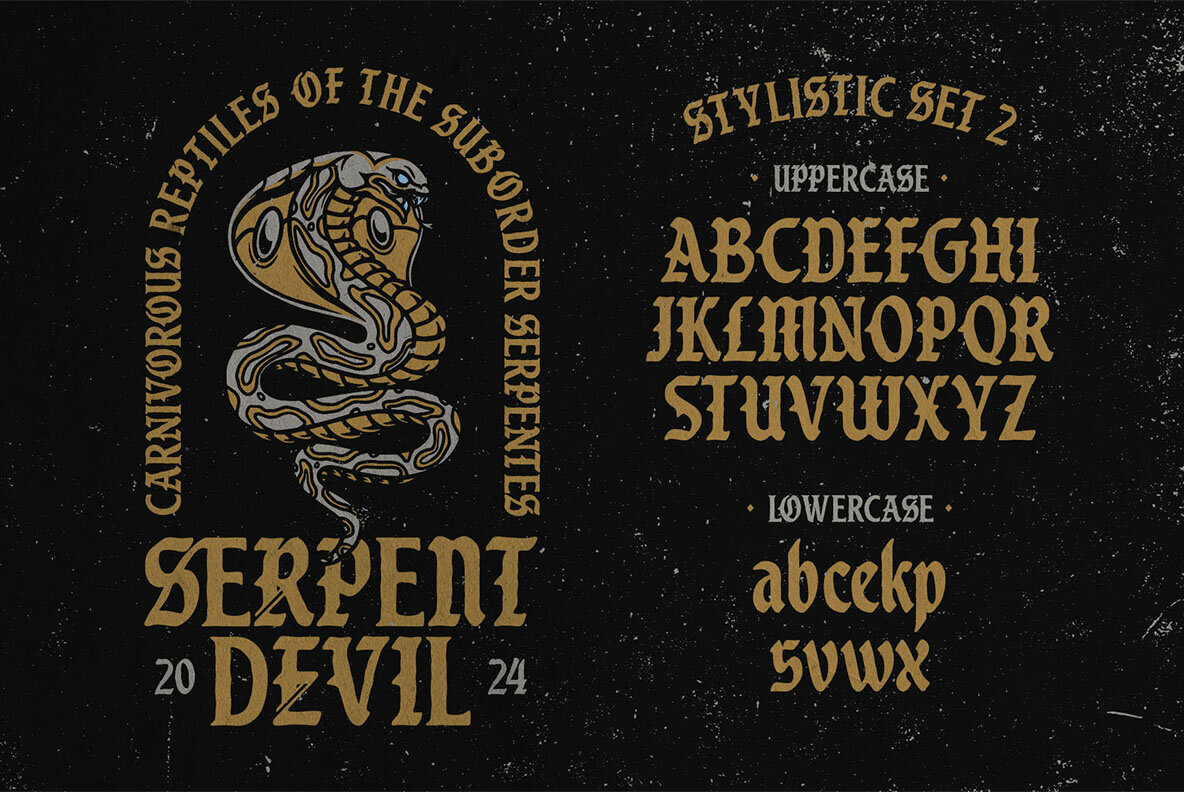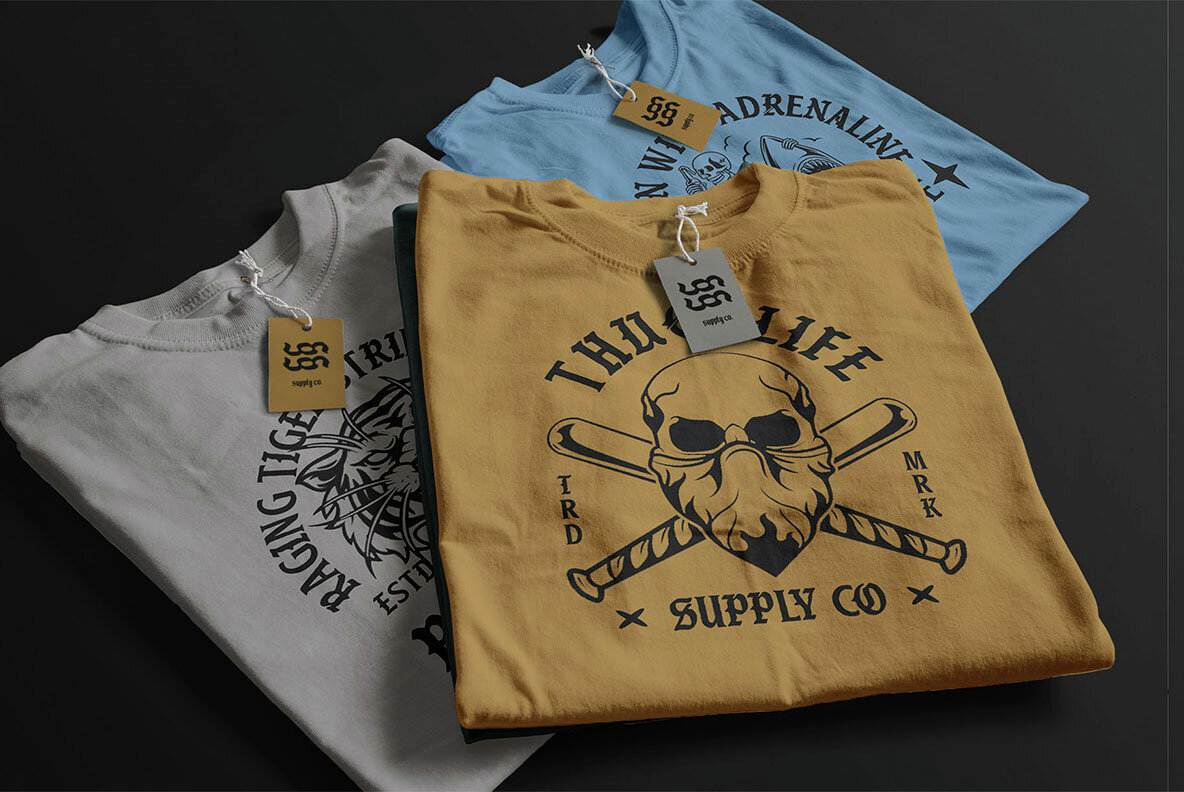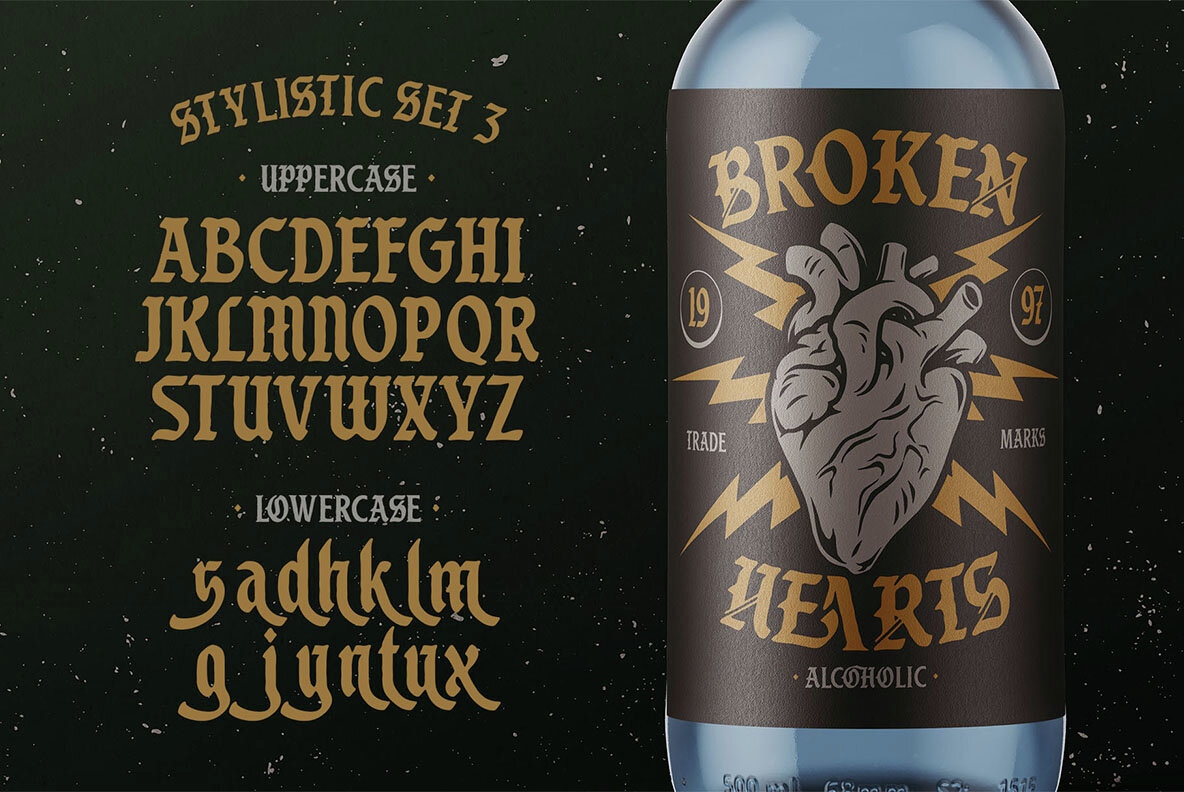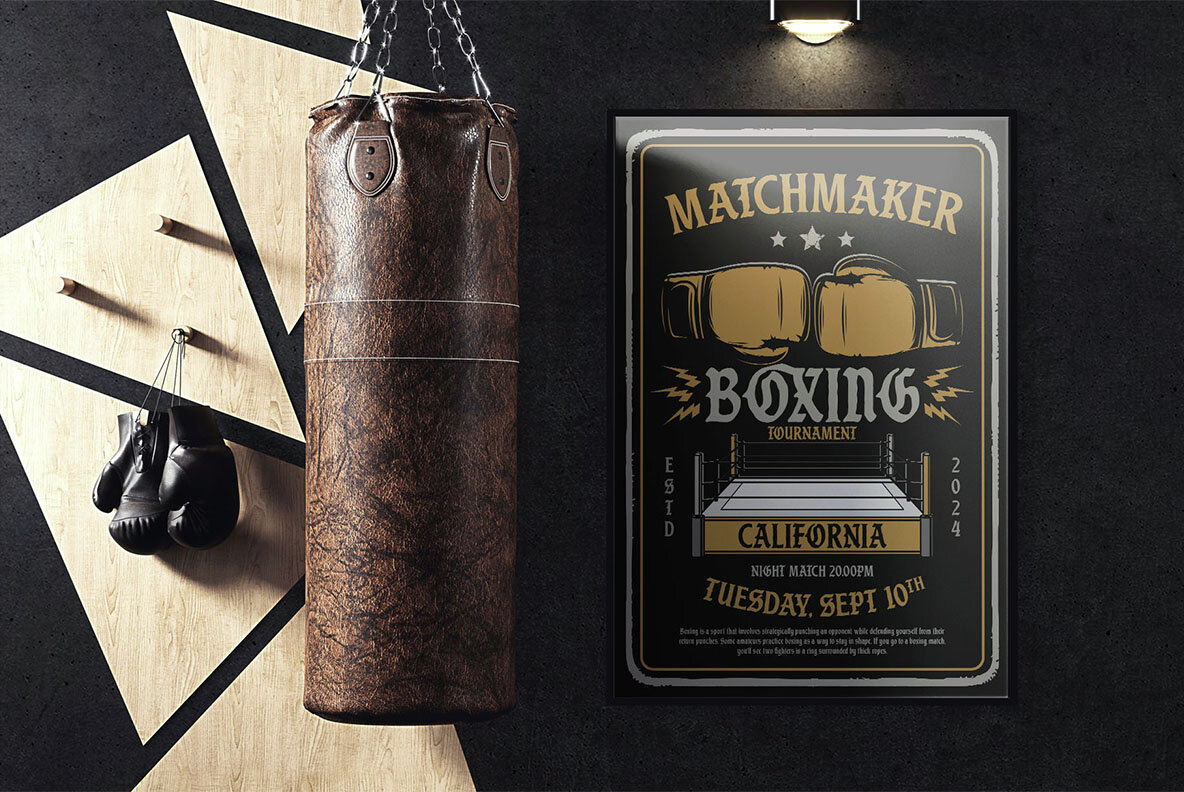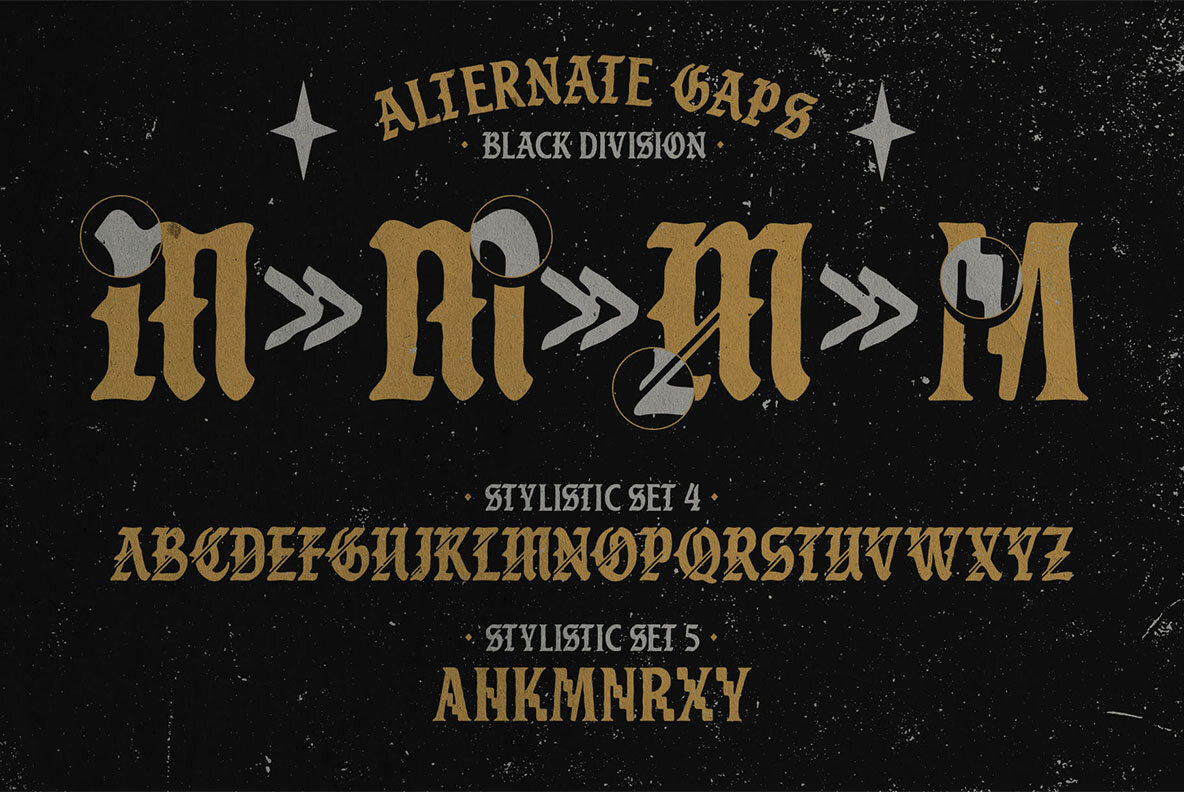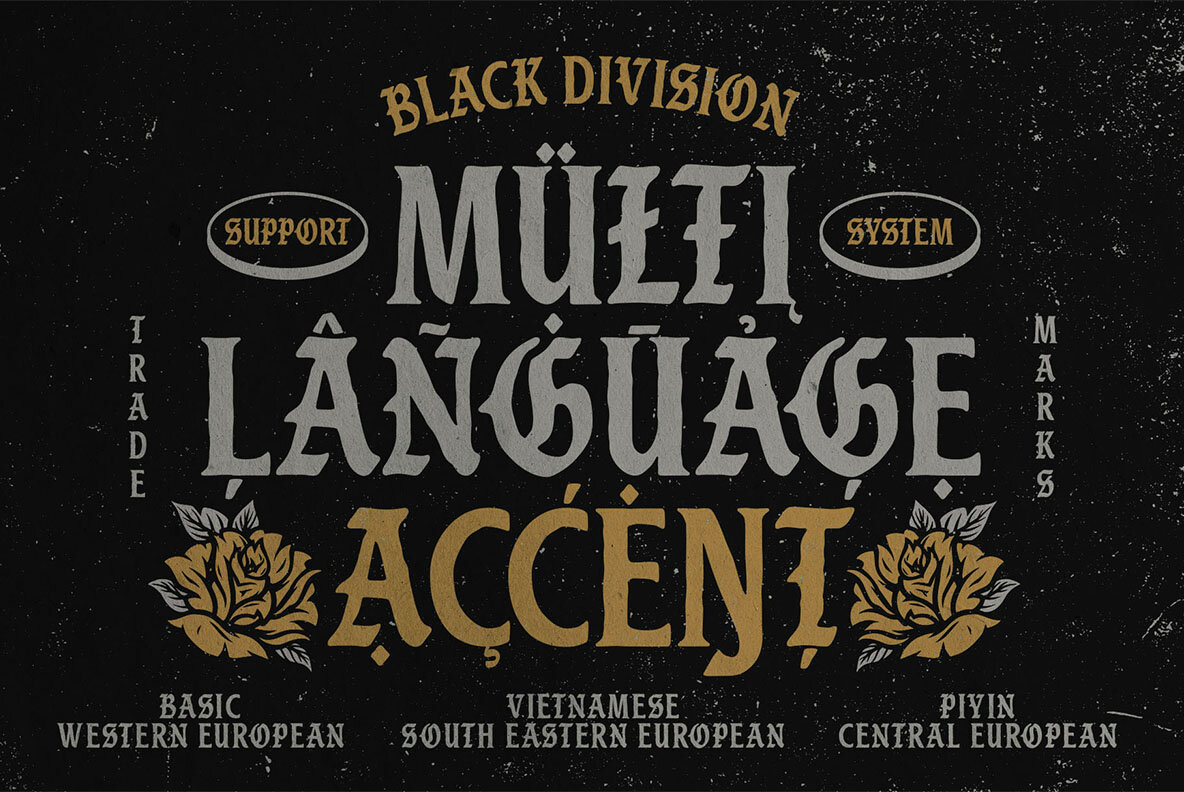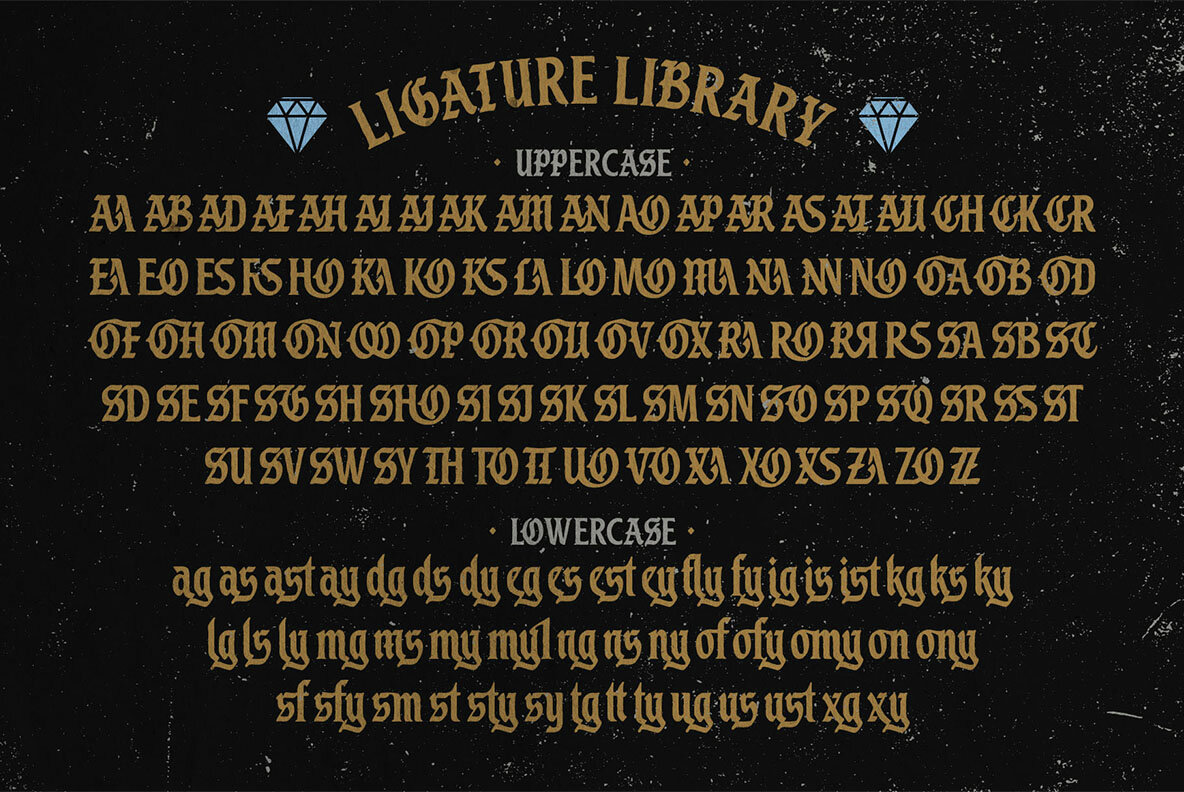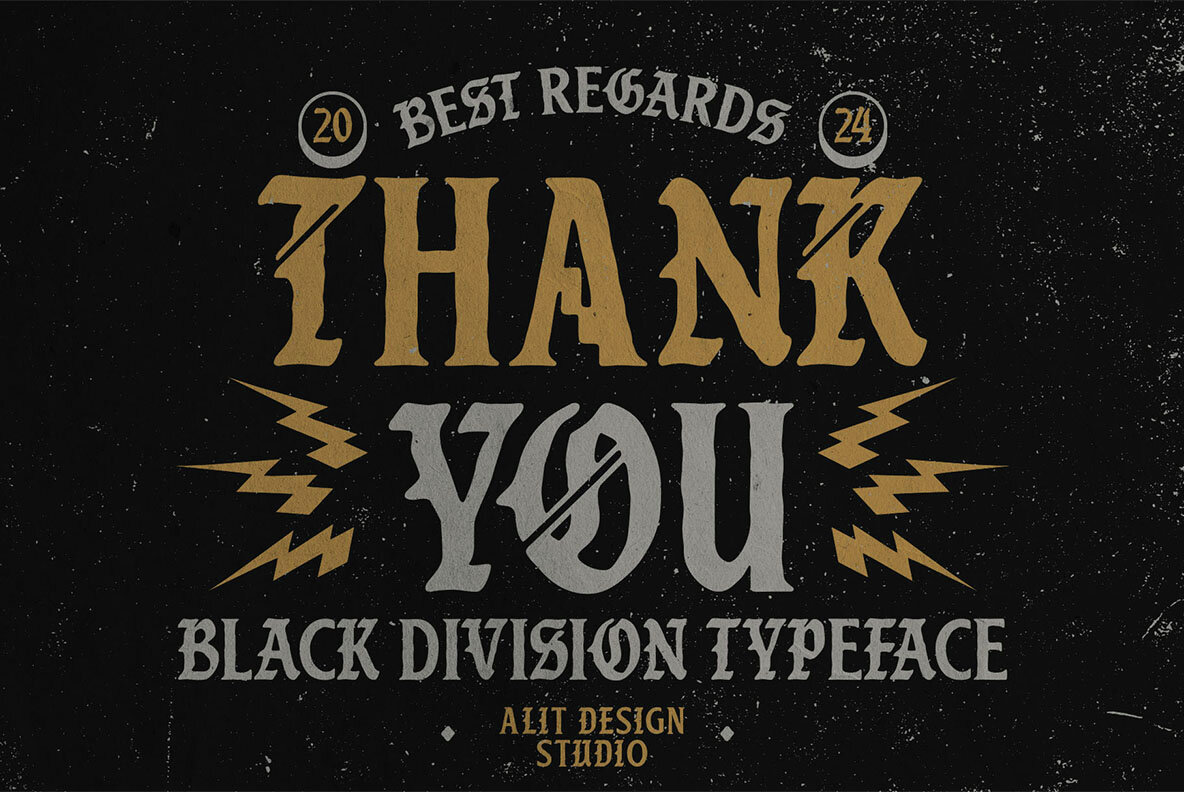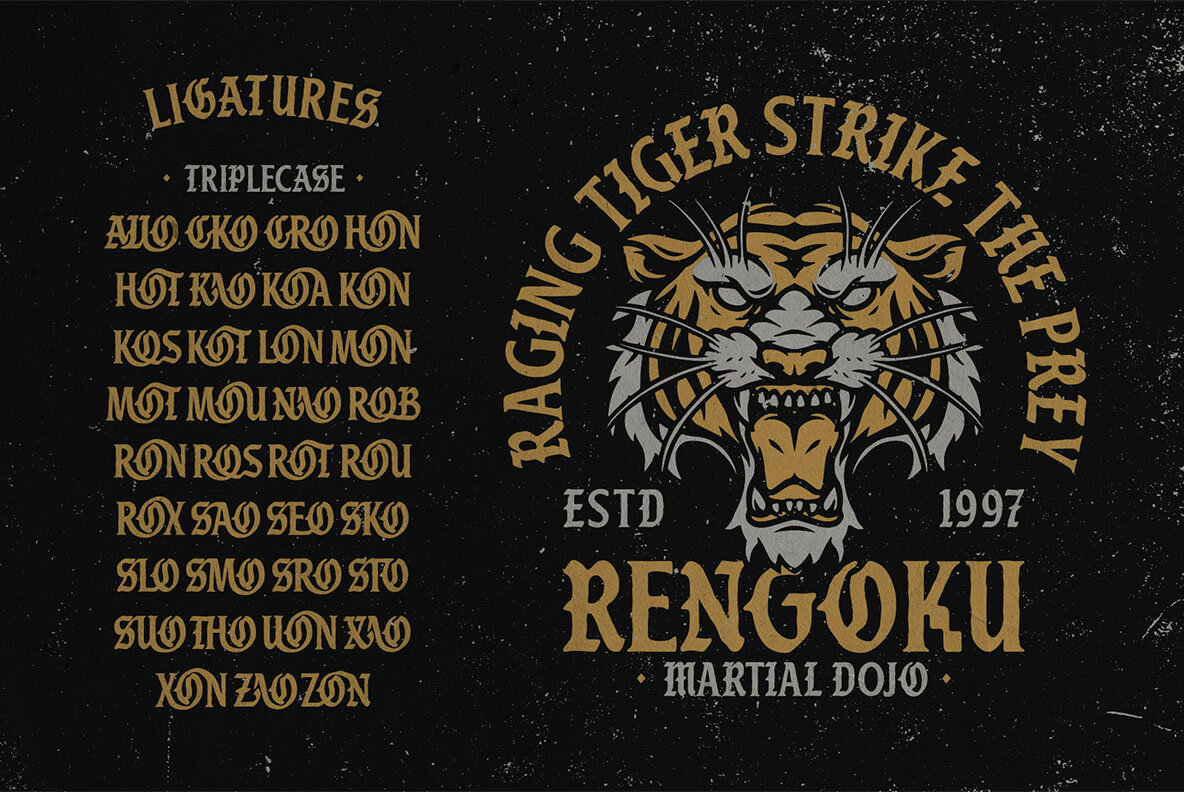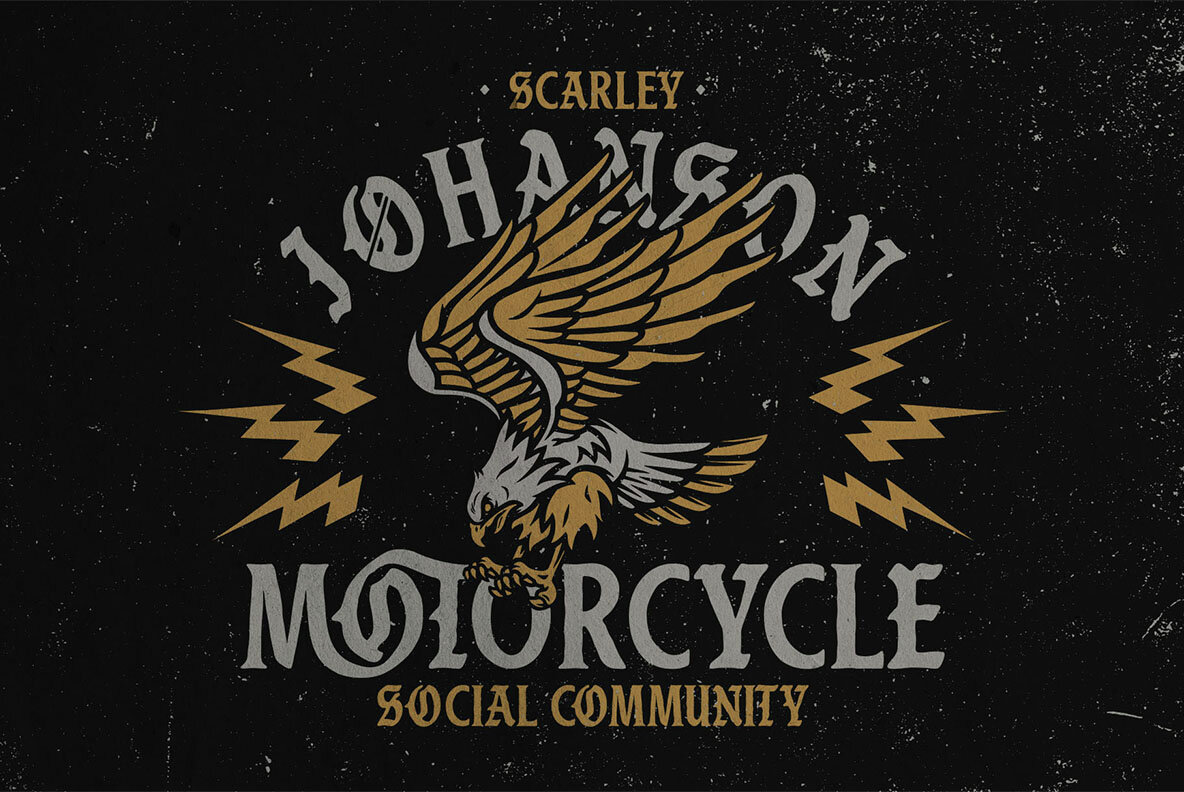
Black Division Font
Black Division Regular
Black Division Typeface offers a bold, versatile blackletter font that brings a raw, vintage flair to your designs. Its distressed texture and classic blackletter structure make it ideal for projects demanding a gothic aesthetic with a modern twist. Perfect for branding, packaging, apparel, or signage, this font’s unique character ensures that your work stands out with a dramatic presence.
Featuring 821 characters, including uppercase, lowercase, numbers, punctuation, symbols, and more, Black Division is adaptable for both simple and complex layouts. Multiple stylistic alternates allow for customization, giving designers the flexibility needed for logos, titles, and wordmarks. Specially designed ligatures create seamless letter combinations, maintaining the font’s rugged, vintage aesthetic. Fully PUA encoded, Black Division offers easy access to all glyphs and swashes without specialized software, and its comprehensive multilingual support makes it a versatile choice for global projects. Inspired by historical blackletter typefaces, this font revives medieval calligraphy with a contemporary twist, making it perfect for vintage-themed projects, tattoo designs, posters, and more.